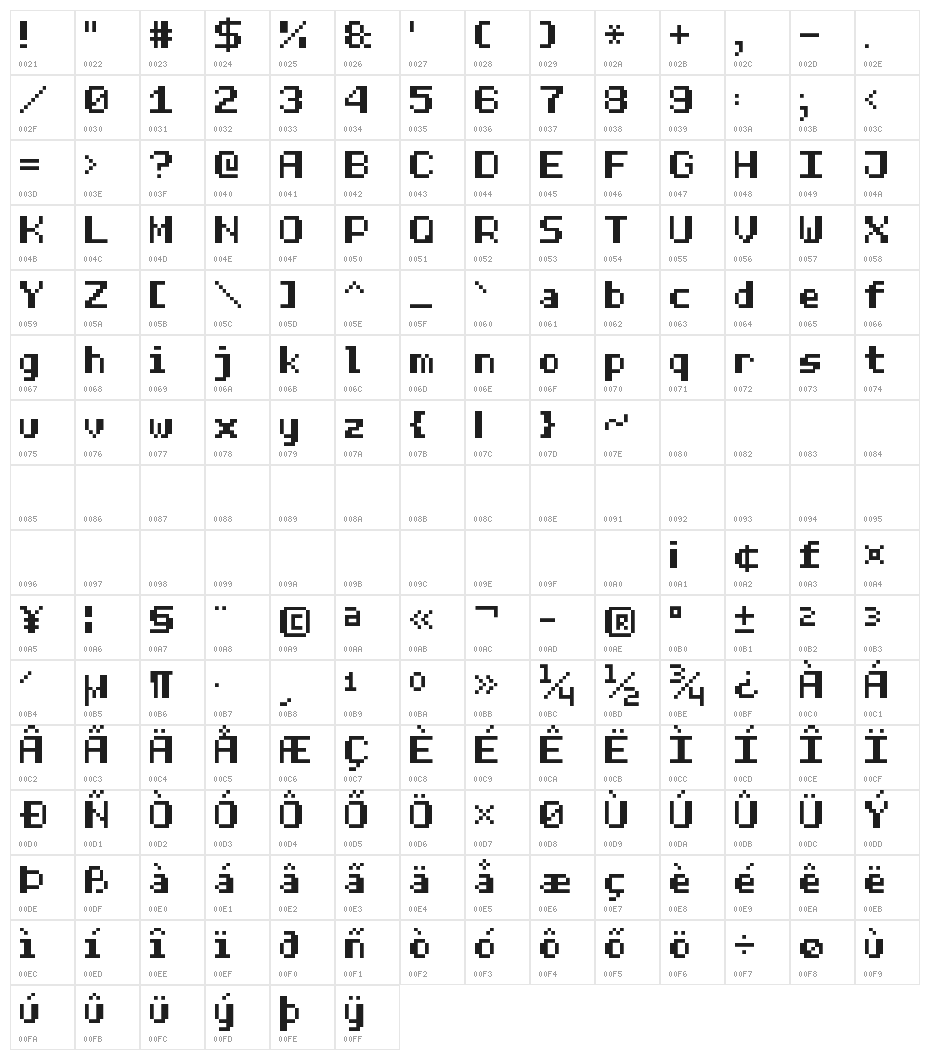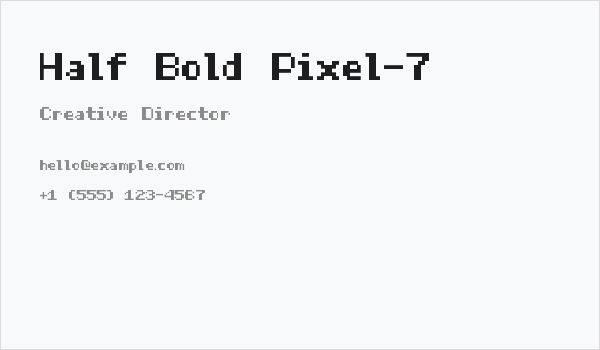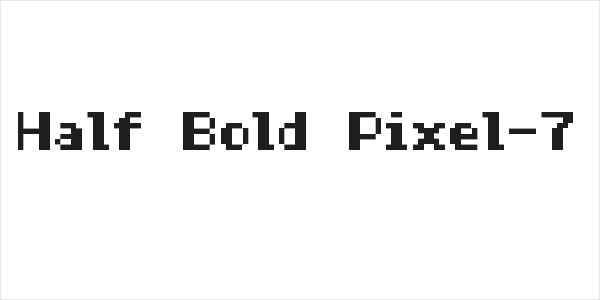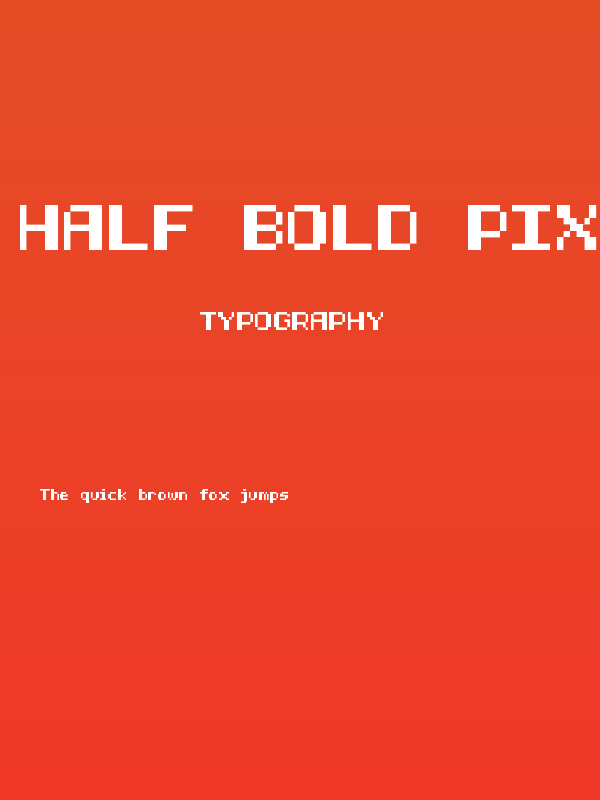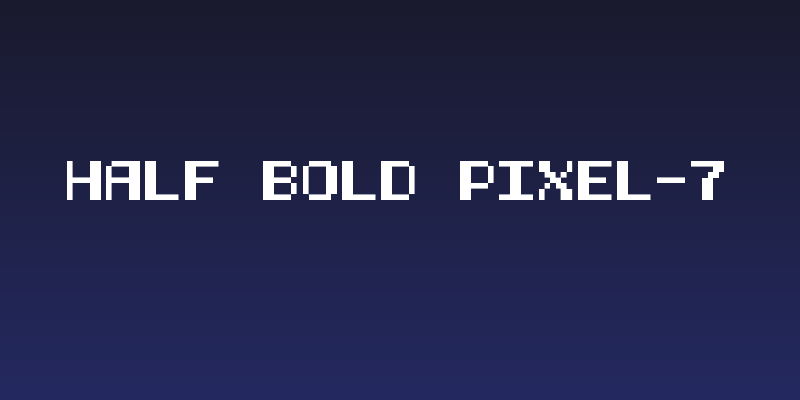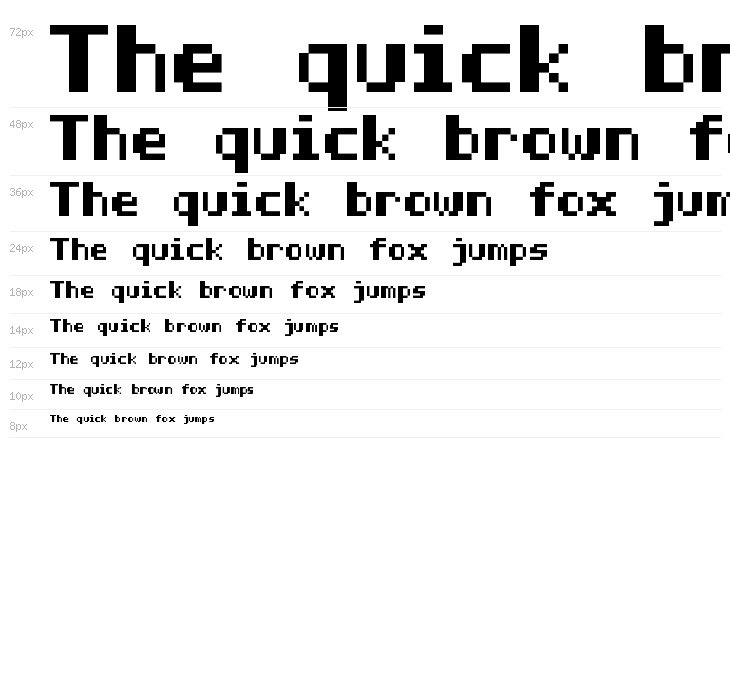
Half Bold Pixel-7 Font
Half Bold Pixel-7 Description
This font features a pixelated design that evokes a retro, digital aesthetic reminiscent of early computer graphics and video games. The characters are constructed with a blocky, grid-like structure, giving them a distinctive, nostalgic appearance. Each letter and number is crafted with a uniform pixel size, contributing to a cohesive and consistent look across the typeface. The uppercase and lowercase letters maintain a similar width, enhancing readability while preserving the unique pixelated style. The font includes a full set of numerals and a variety of special characters, making it versatile for digital-themed projects.
| Use Case | Logos, Headlines, Digital Art |
| Proposed Projects | Ideal for video game design, digital art projects, retro-themed posters, and any creative work that seeks to capture a nostalgic, digital feel. |